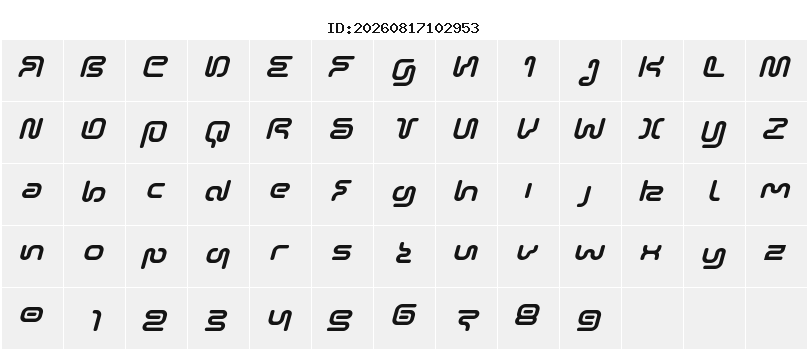
Sonic Empire Preview
• Font Name: Sonic Empire
• Full Font Name: Sonic Empire Italic
About Sonic Empire.ttf
Sonic Empire.ttf is a modern, elegant sans-serif font designed for ultimate readability and visual harmony. Perfect for branding, headlines, web design, and print materials.